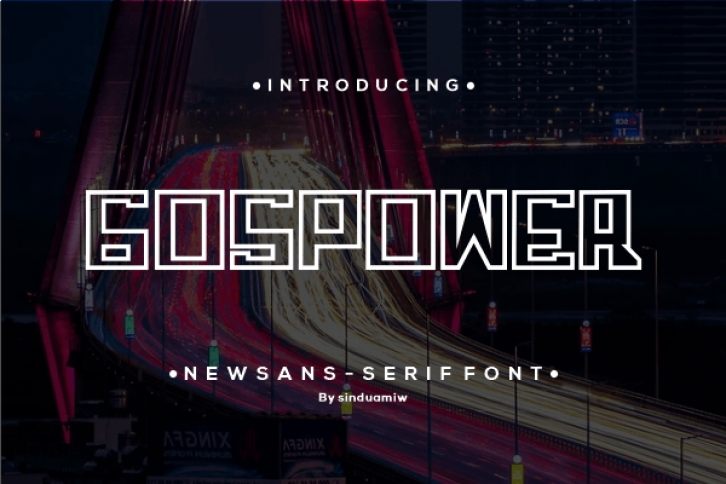
Gospower is a modern and futuristic sans serif display font. Whatever the topic, this font will be a wonderful asset to your font library, as it has the potential to enhance any creation.